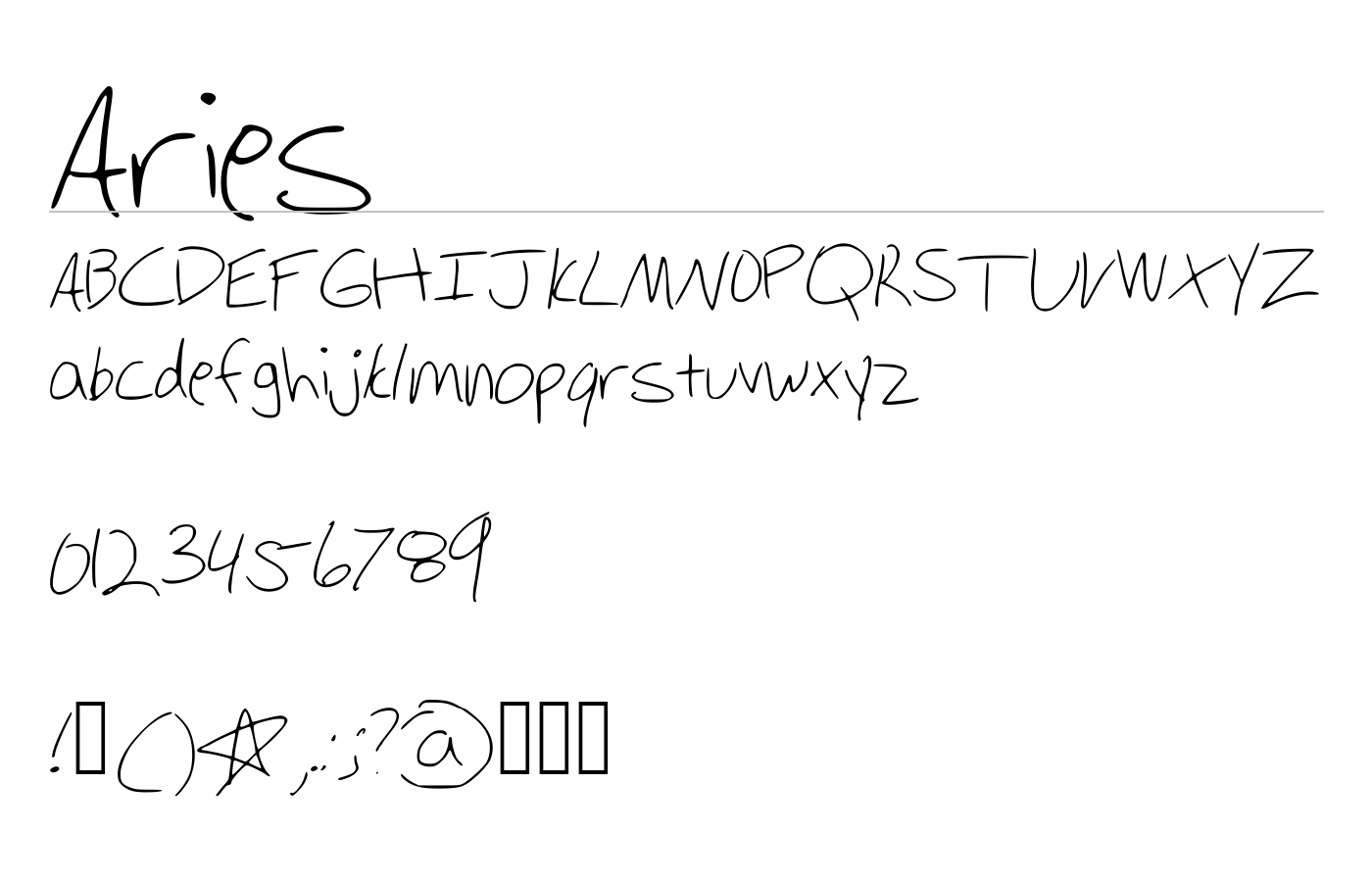
Aries is a playful, casual handwritten font with a light, airy stroke that gives it an informal and friendly feel. Its tall, slightly uneven letterforms and simple lines make it perfect for creative, personal, or kid-focused designs, adding a touch of warmth and spontaneity to logos, invitations, or social media graphics. This font works best where a relaxed, approachable vibe is desired without sacrificing clarity.
Aries Font